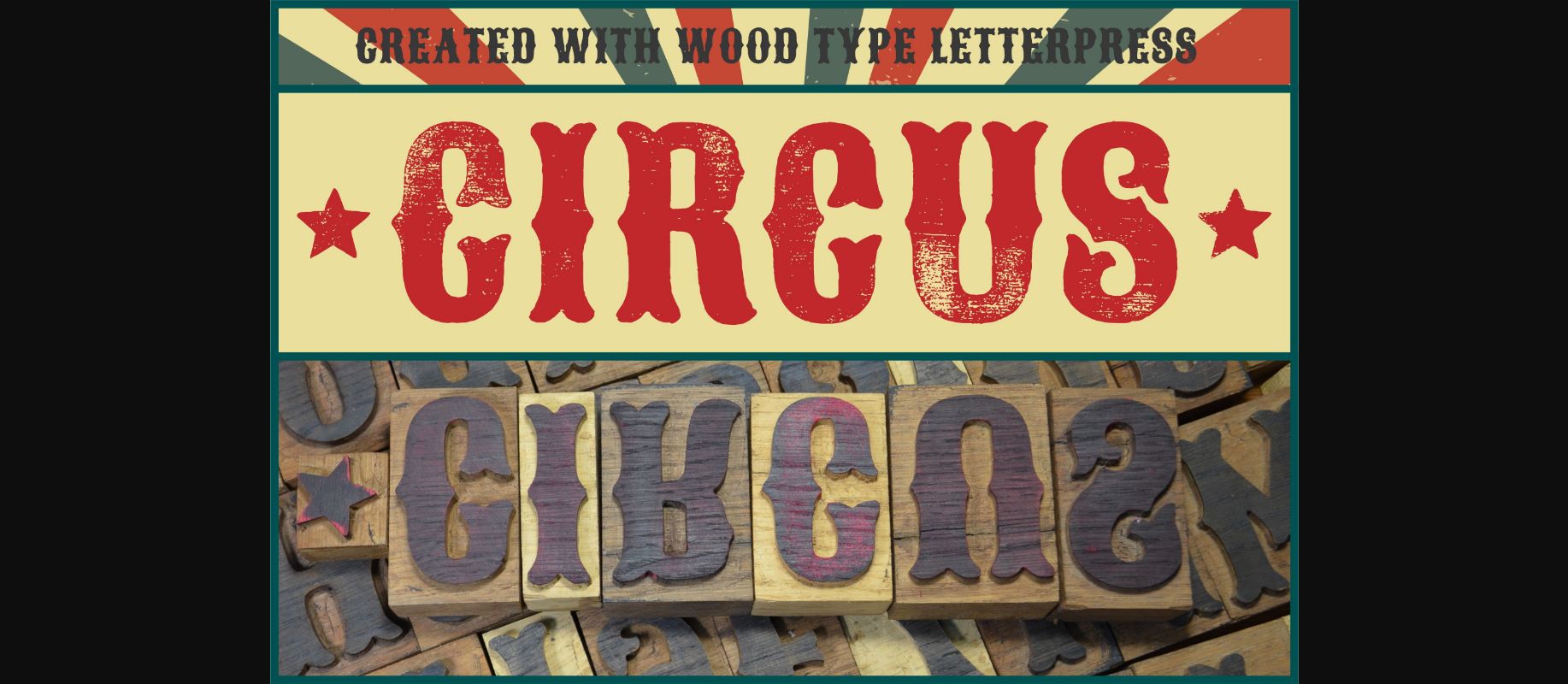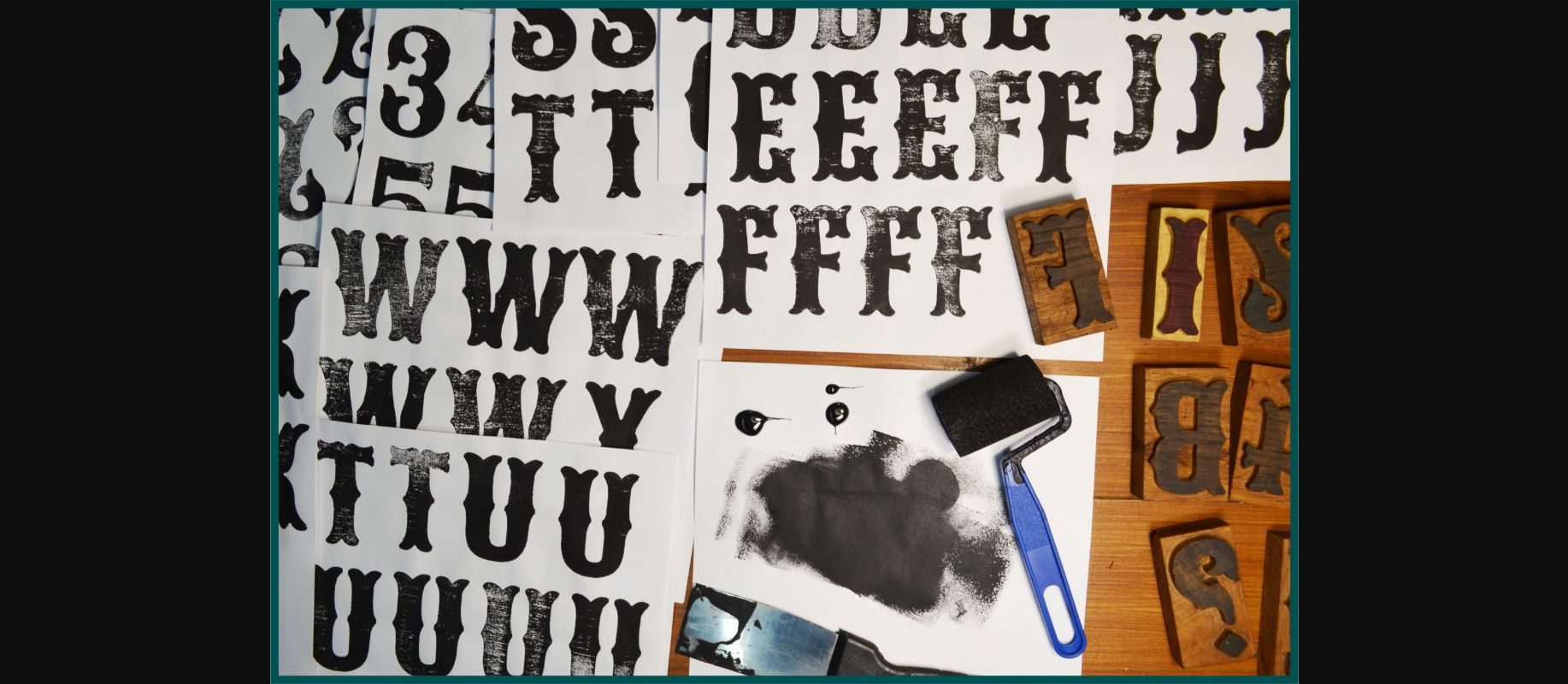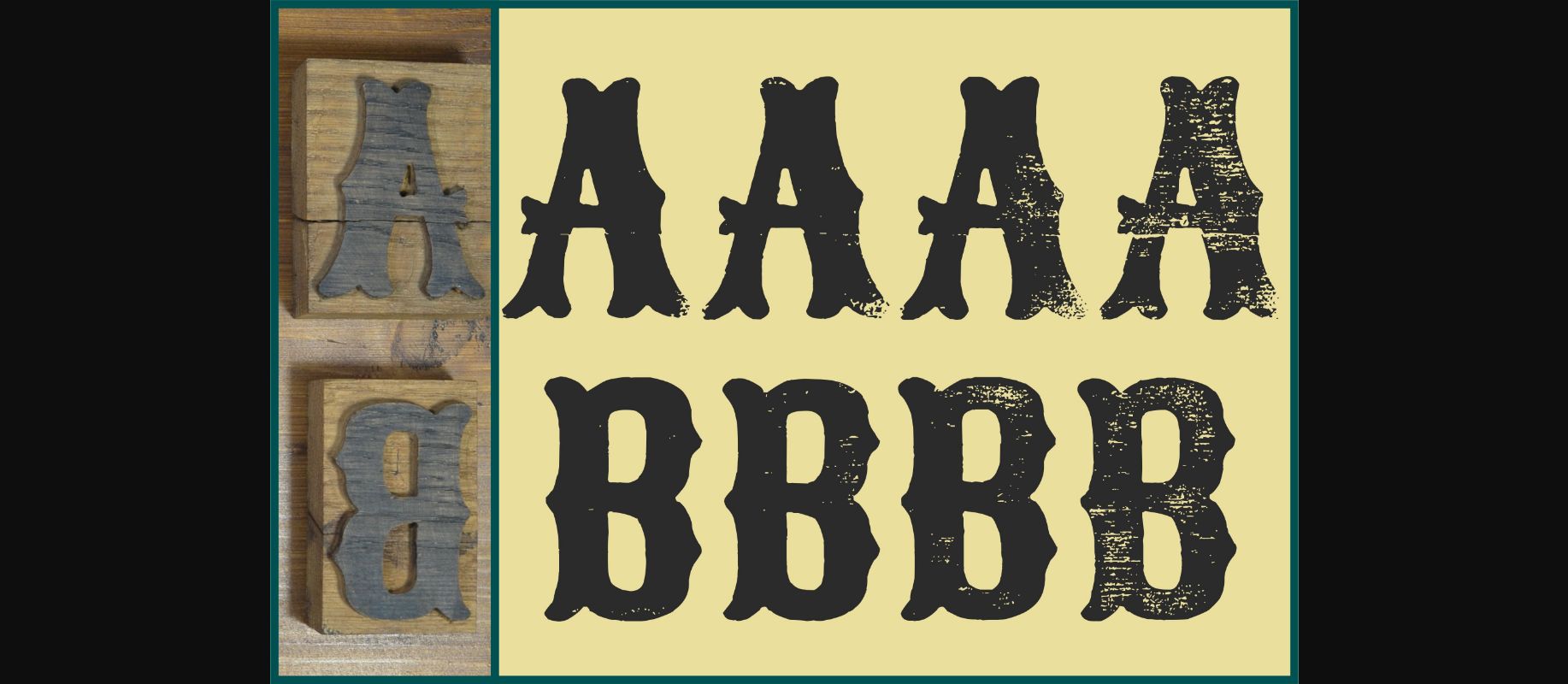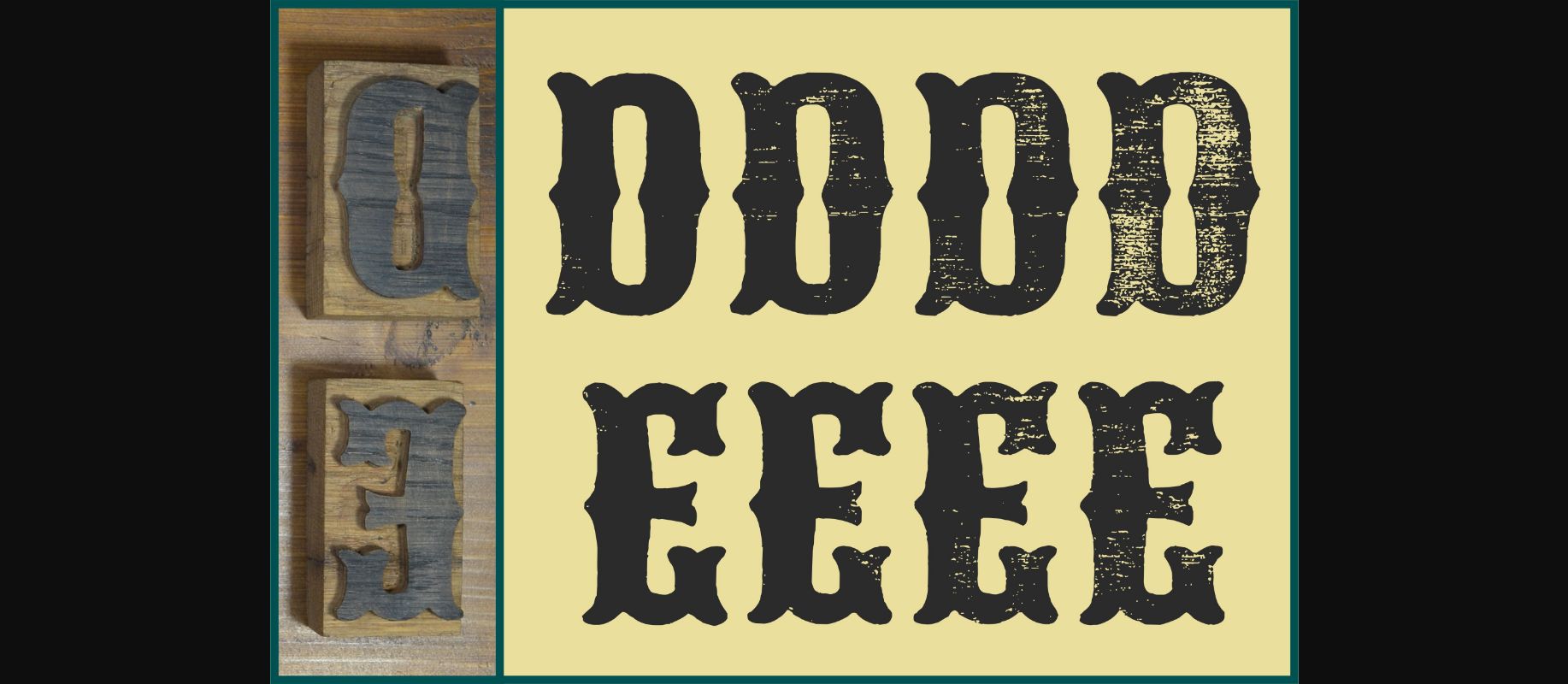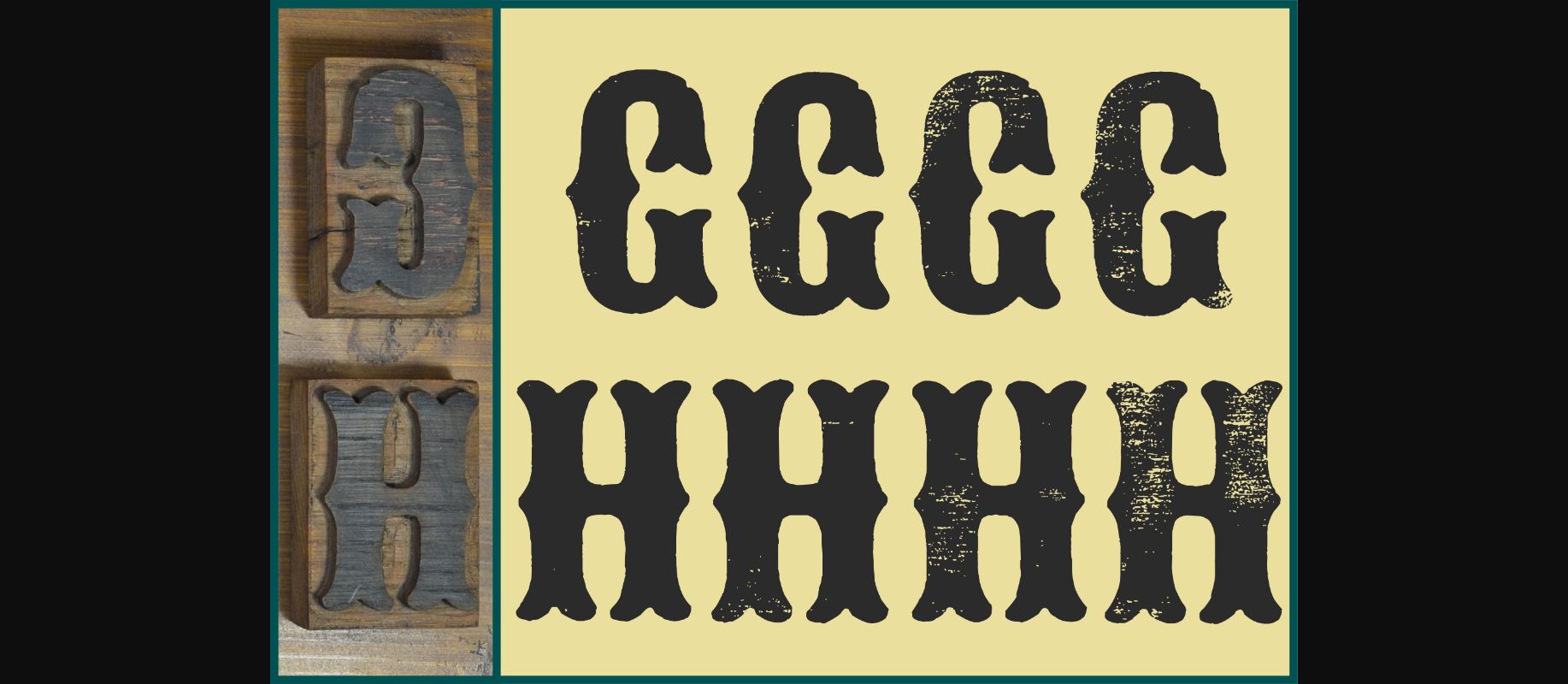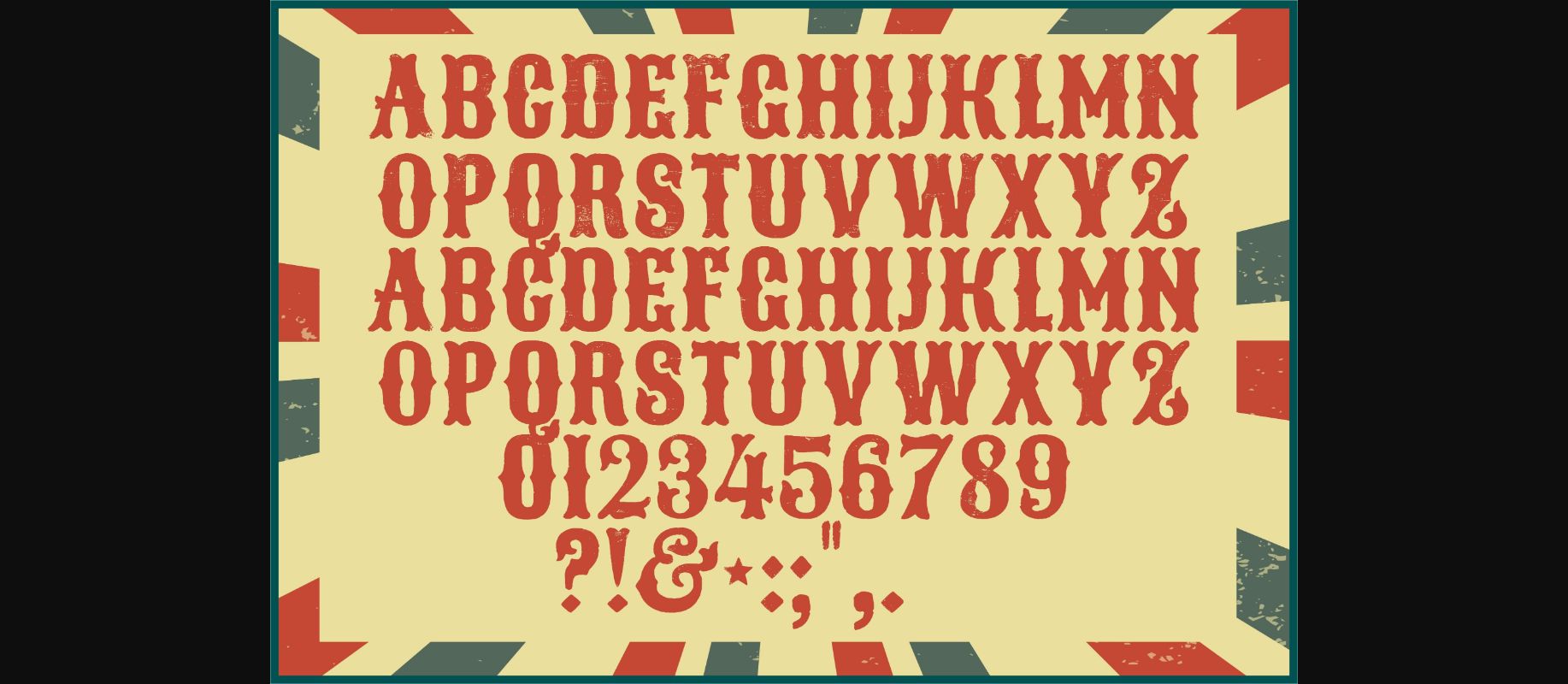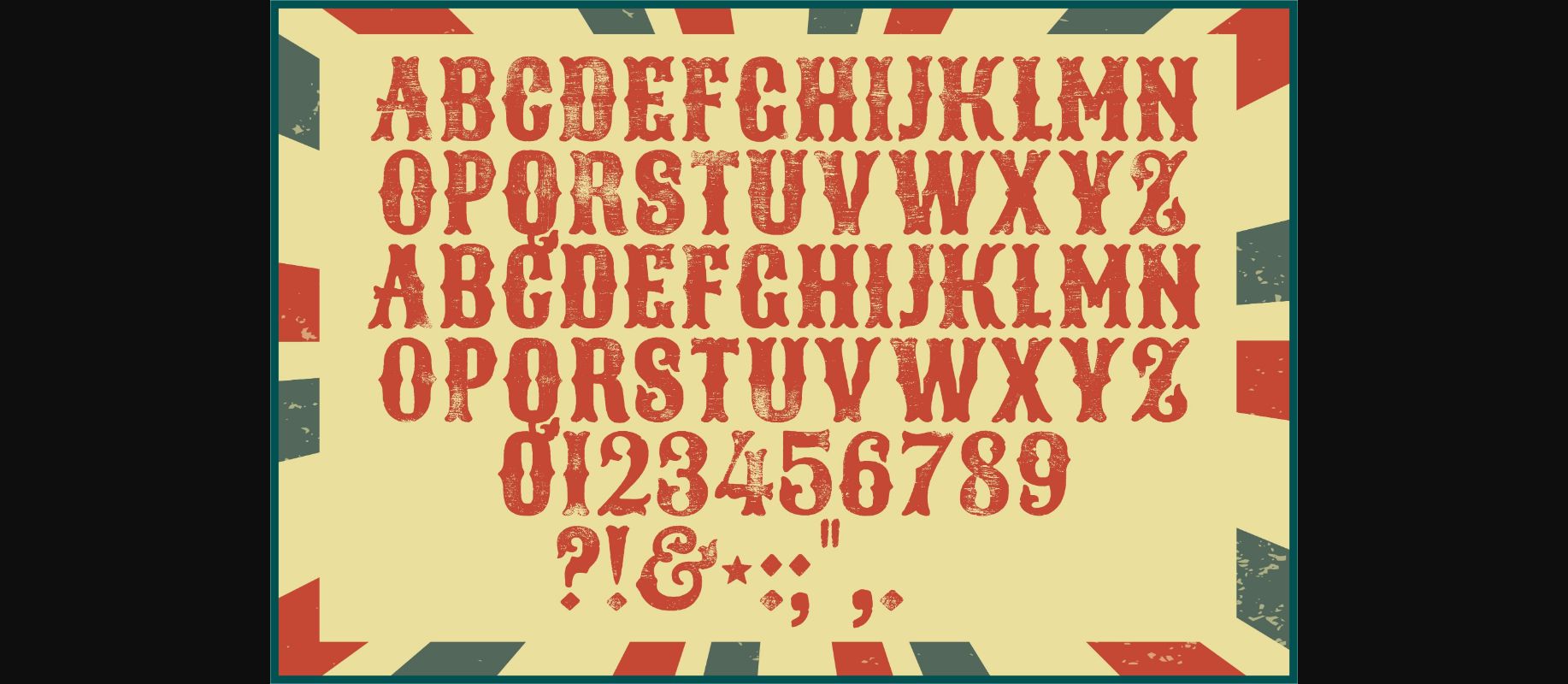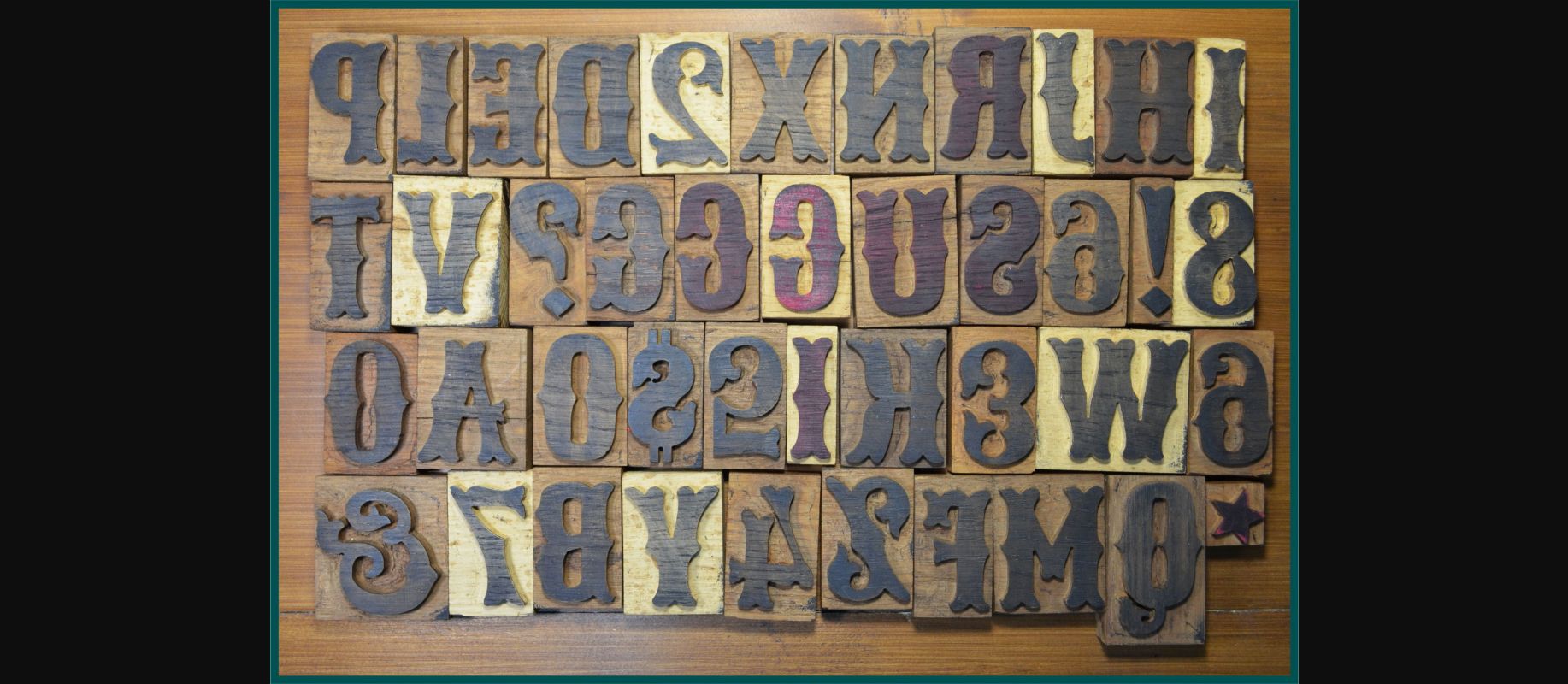
About Circus Font
How it’s made: Each glyph was carved from wood, pressed, scanned, and digitized.
Typeface made using a letterpress appears tactile and real, as opposed to a digitally created design.